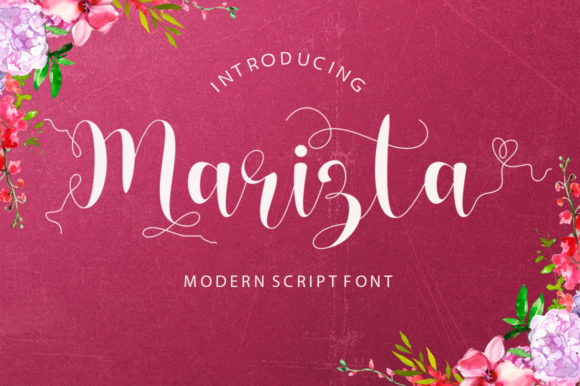
Marizta: A Handwritten Font Built for Handmade Products
If you craft or sell handmade goods, you know that your product packaging and presentation matter just as much as the product itself. The right typeface can instantly signal quality, warmth, and attention to detail. That is exactly why I was so excited to try Marizta for my own shop. This beautiful and romantic handwritten font has an incredibly friendly feel, and it is packed with gorgeous swashes and ligatures that make every project look polished and intentional. Whether you design labels, stickers, invitations, or digital templates, Marizta brings a genuine handwritten charm that customers notice.
What Makes Marizta Stand Out for Makers
Marizta is not just another script font. Its visual personality sits right at the intersection of elegance and approachability. The letterforms feel fluid and natural, as if penned by hand with care, yet they maintain consistent spacing and weight that make them reliable for production work. The swashes add a decorative flourish without overwhelming the text, and the ligatures ensure that letter combinations look seamless. For crafters who want their products to feel personal and high-end, this handwritten font delivers both warmth and sophistication.
As a Script Amp offering, Marizta is designed to be versatile. It works beautifully for short phrases, names, titles, and decorative wording, which is exactly what most of us need for product labels and signs. You can use it on its own as a display element or pair it with other fonts for a complete look. The friendly feel makes it especially suitable for products aimed at weddings, birthdays, home decor, and seasonal celebrations.
Practical Craft Applications for Marizta
I have tested Marizta across several types of projects, and it performs beautifully in each setting. Here are some realistic ways you can use this handwritten font in your own shop:
Because Marizta is a display script, it excels in short applications where you want the text to be the focal point. It is not designed for long paragraphs, but for titles, names, and decorative phrases, it is nearly perfect.
How Marizta Affects Product Presentation and Brand Identity
Your choice of typeface directly influences how customers perceive your products. A font like Marizta communicates care, artistry, and a personal touch. When a shopper sees a product with a beautifully lettered label, they associate that quality with the item itself. For handmade sellers, this emotional appeal is invaluable. It helps your work stand out in a crowded marketplace and builds recognition over time.
Consistency is key for brand identity. Using Marizta across your product line, from labels to packaging tags to social media graphics, creates a unified visual language. Customers will begin to recognize your style, and that familiarity builds trust. For those of us running small shops, that trust translates into repeat sales and word-of-mouth referrals.
The swashes and ligatures in Marizta also allow you to create variations within a consistent framework. You can use alternate characters to give each product a slightly unique look while maintaining brand cohesion. This is especially useful for limited edition items or personalized products where a bespoke feel matters.
Readability and Cutting Machine Compatibility
One concern I always have with decorative script fonts is readability, especially at small sizes. Marizta strikes a good balance. The letterforms are clear and well-proportioned, even when scaled down for small stickers or product labels. The friendly open shapes mean that names and short phrases remain legible at sizes as small as 8 to 10 points, though I recommend testing on your specific medium.
For those using cutting machines like Cricut or Silhouette, Marizta cuts cleanly when set to a reasonable size. The swashes and ligatures do not create fragile thin sections that might tear or lift during weeding. I have used it for vinyl decals on mugs and signs, and the results were crisp and professional. The font works well for both print-then-cut and cut-only projects.
When printing on cards or paper, the script maintains its charm without becoming muddy. If you are creating mockup previews for your shop listings, Marizta renders attractively at typical thumbnail sizes, which helps customers see the design clearly before clicking.
Font Pairing Ideas for Marizta
A handwritten font like Marizta pairs beautifully with clean, neutral companions. The goal is to let the script stand out while the supporting font provides structure and readability. Here are some pairings that work well in craft and product projects:
When pairing, use Marizta for the most prominent text element and the companion font for supporting details. This keeps the design cohesive and ensures the script remains the star.